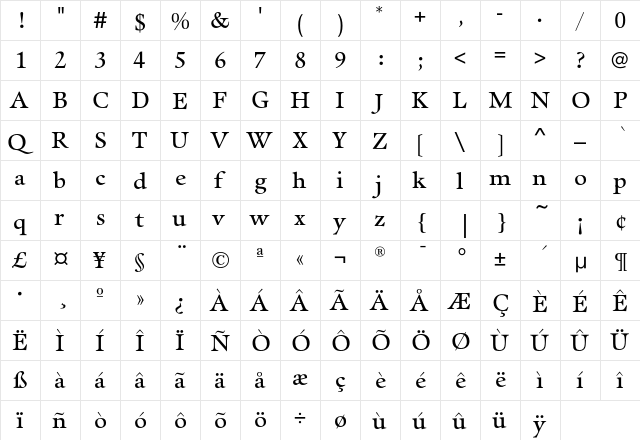
AureliaEF-Book Regular Font Preview
AureliaEF-Book Regular
AureliaEF-Book Regular Font Details
Design Context for AureliaEF-Book Typeface
AureliaEF-Book offers clean, dependable letterforms without strong stylistic allegiance, making it a practical choice for designers who need flexibility.